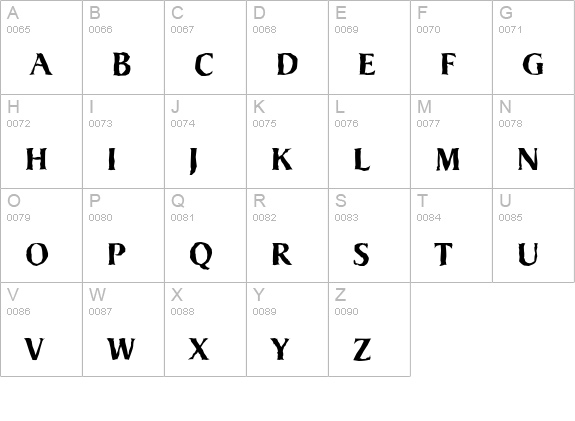
DragonAntique-Bold Font Details
DragonAntique-Bold is a strong, high-contrast variant in the DragonAntique typeface family \xE2\x80\x94 well suited to headlines, attention-grabbing titles, and strong calls-to-action.
DragonAntique-Bold is a captivating and powerful display font that exudes a sense of timeless elegance and sophistication. With its bold strokes and intricate details, this font commands attention and adds a touch of grandeur to any design project. Whether used for headlines, titles, or branding, DragonAntique-Bold makes a statement with its unique and striking appearance. And the best part? DragonAntique-Bold is available for free download at FontsMarket.com. This means you can effortlessly add this stunning font to your collection without any cost, making it a valuable resource for designers, creatives, and anyone looking to elevate their projects with a touch of luxury. Embrace the beauty and versatility of DragonAntique-Bold today and let your creativity soar to new heights.